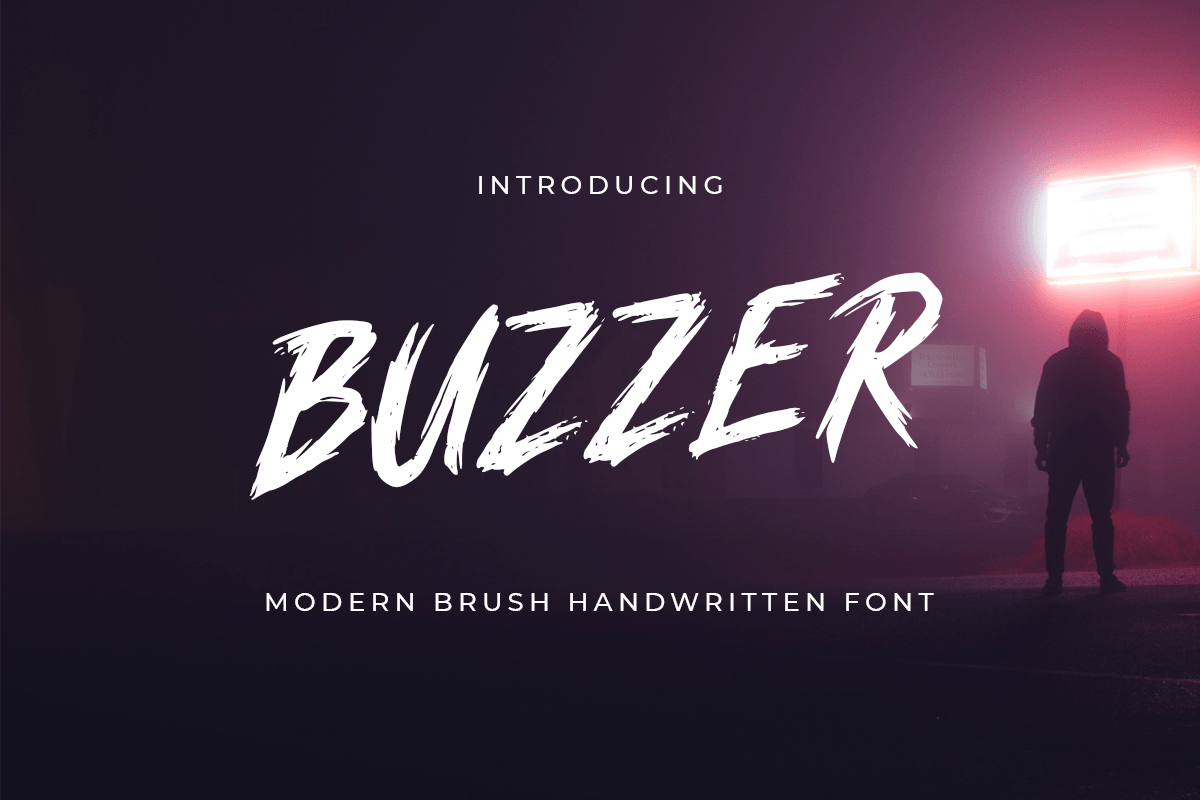
BUZZER
-Modern Brush Handwritten Font
BUZZER is a Modern Brush font with Handwritten feels and Perfect for action themes poster design. With rough, energetic, and look perfect on action move, this font perfect for racing projects, ready to use on any poster, headline, promotion, and Many more that needs rough touches.